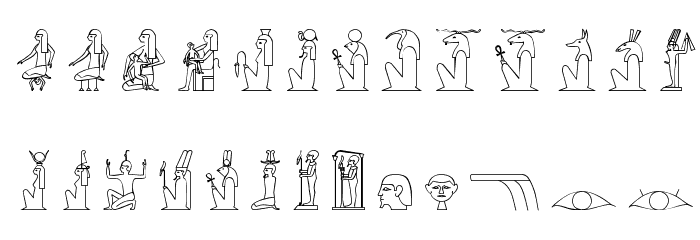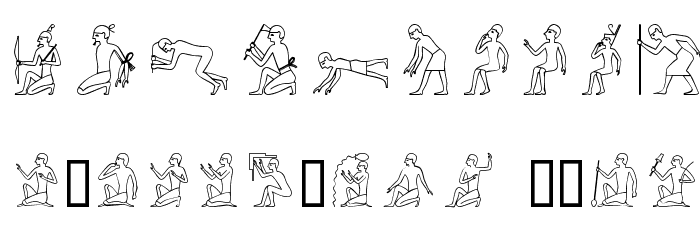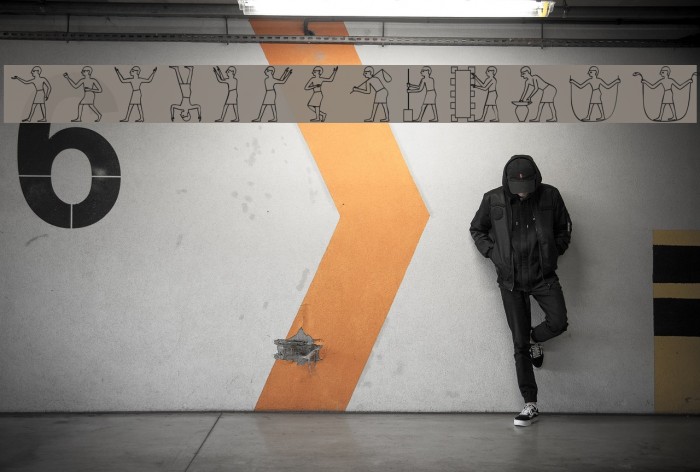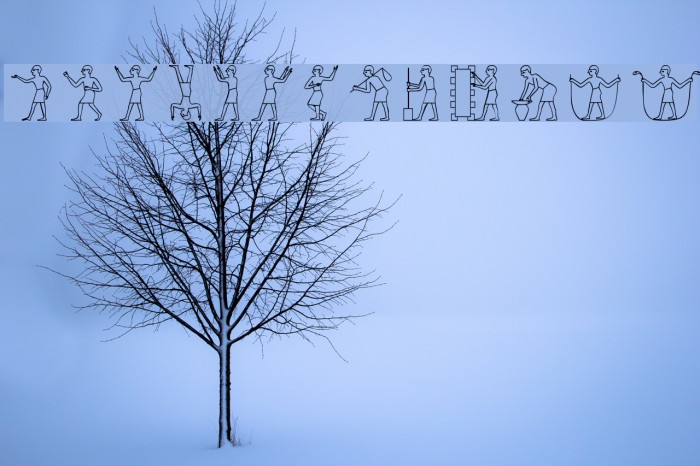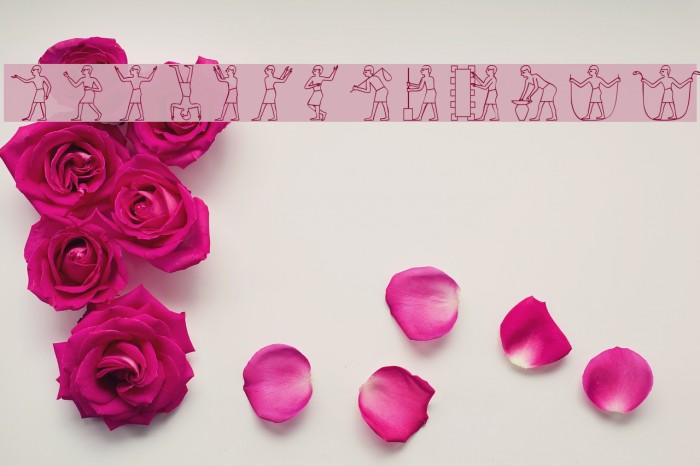
GlyphBasic1 Font
This image showcases a series of glyphs that resemble ancient hieroglyphics or pictograms. Each character is a detailed illustration of human figures and objects, capturing a sense of historical or cultural significance. The style is linear and minimalistic, with each glyph depicting a distinct scene or action. The characters are evenly spaced and maintain a consistent line weight throughout, giving them a uniform appearance. This set of glyphs could be used to convey messages or themes related to history, archaeology, or ancient cultures. The overall aesthetic is decorative and artistic, making it suitable for creative projects that aim to evoke a sense of antiquity or mystery.
A decorative set of glyphs resembling ancient pictograms, ideal for historical or cultural themes.
- Proposed Projects: Ideal for use in educational materials, museum exhibits, themed event decorations, or creative storytelling projects.
- Use Case: Logos, Decorative elements, Themed designs